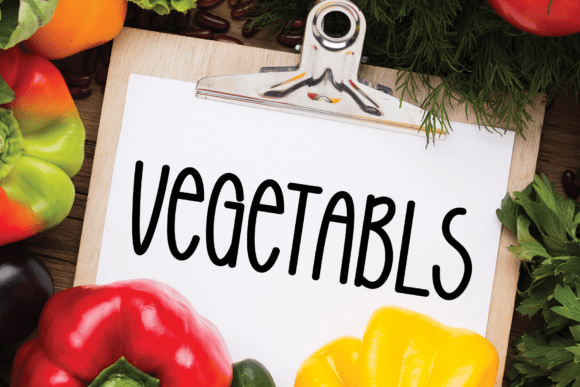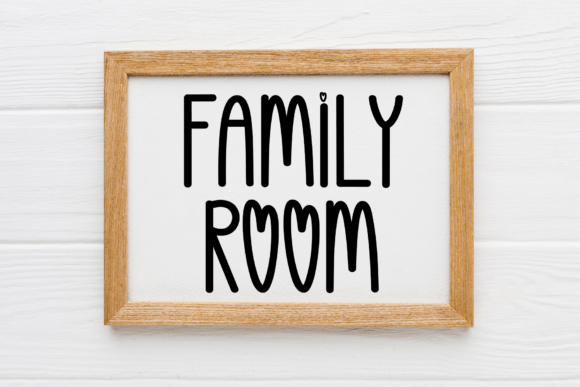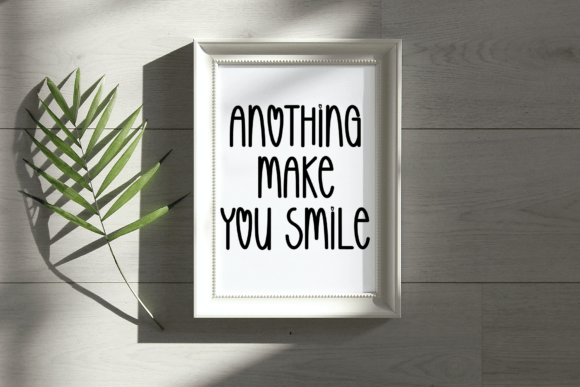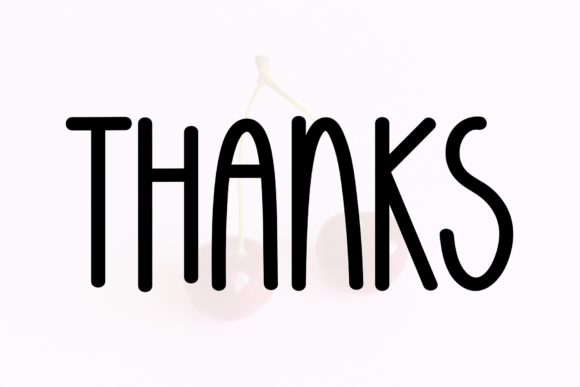
Introducing Florisse Font: The Perfect Blend of Luxury and Casual Elegance
Are you a designer or crafter looking for a font that exudes luxury and elegance while still maintaining a casual touch? Look no further than Florisse Font, a beautiful handwritten font that is sure to elevate your designs to the next level. In this article, we’ll take a closer look at Florisse Font, its features, and how you can use it to create stunning designs for various applications.
What is Florisse Font?
Florisse Font is a handwritten font that looks like it was drawn with a marker. Its relaxed and sporty feel makes it perfect for a wide range of design applications, from branding and logos to wedding supplies, greeting cards, fashion, lookbooks, and marketing promotions. With Florisse Font, you can add a touch of sophistication and elegance to your designs while still keeping them casual and approachable.
Key Features of Florisse Font
- Handwritten with a marker feel: Florisse Font has a unique, handwritten feel that gives it a personal and organic touch.
- Relaxed and sporty: The font’s relaxed and sporty feel makes it perfect for designs that require a casual yet stylish approach.
- Luxurious and elegant: Despite its casual feel, Florisse Font exudes luxury and elegance, making it perfect for high-end designs.
- Versatile: Florisse Font can be used for a wide range of design applications, from branding and logos to wedding supplies, greeting cards, fashion, lookbooks, and marketing promotions.
Use Cases for Florisse Font
Florisse Font is a versatile font that can be used for various design applications. Here are some use cases to get you started:
- Branding and Logos: Use Florisse Font to create a unique and memorable brand identity that exudes luxury and elegance.
- Wedding Supplies: Add a touch of sophistication and elegance to your wedding designs, including invitations, programs, and place cards.
- Greeting Cards: Create beautiful and heartfelt greeting cards for special occasions, such as birthdays, anniversaries, and holidays.
- Fashion and Lookbooks: Use Florisse Font to create stylish and luxurious fashion designs, including lookbooks, catalogs, and advertisements.
- Marketing Promotions: Elevate your marketing promotions with Florisse Font, including brochures, flyers, and social media graphics.
Tips for Using Florisse Font
Here are some tips to help you get the most out of Florisse Font:
- Pair with other fonts: Experiment with pairing Florisse Font with other fonts to create a unique and visually appealing design.
- Use it sparingly: Use Florisse Font sparingly to add a touch of elegance and sophistication to your designs.
- Experiment with colors: Try out different colors and color combinations to find the perfect match for your design.
Florisse Font is a beautiful and versatile handwritten font that is perfect for designers and crafters looking to add a touch of luxury and elegance to their designs. With its relaxed and sporty feel, Florisse Font is suitable for a wide range of design applications, from branding and logos to wedding supplies, greeting cards, fashion, lookbooks, and marketing promotions. By following the tips outlined in this article, you can create stunning designs that showcase the beauty and elegance of Florisse Font.